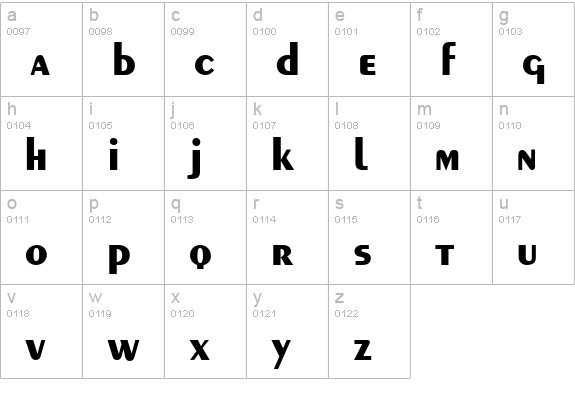
Piano Bold Font Details
Piano Bold is a strong, high-contrast variant in the Piano typeface family \xE2\x80\x94 well suited to headlines, attention-grabbing titles, and strong calls-to-action.
Introducing Piano Bold, a stunning and elegant font that is sure to captivate and inspire. With its bold and confident letterforms, this typeface exudes a sense of strength and sophistication. The clean lines and smooth curves of Piano Bold create a harmonious balance, making it a versatile choice for a wide range of design projects. Whether you're working on a logo, branding materials, or a website, Piano Bold will effortlessly elevate your design to new heights. Its timeless appeal and modern aesthetic make it perfect for both classic and contemporary designs. The bold weight of this font commands attention and adds a touch of authority to any project. But what makes Piano Bold truly exceptional is that it is freely available to download at FontsMarket.com. Yes, you read that right - this incredible font can be yours without any cost. FontsMarket.com is a trusted source for high-quality fonts, and they are proud to offer Piano Bold as a free download. So, why wait? Enhance your designs with the powerful and sophisticated Piano Bold font. Download it now for free at FontsMarket.com and unleash your creativity like never before.